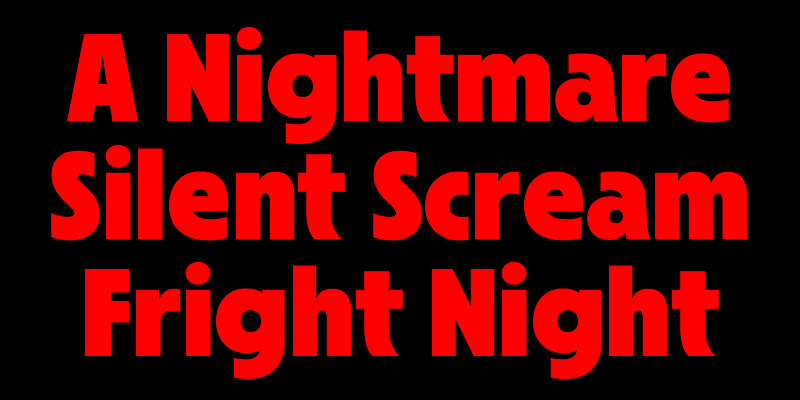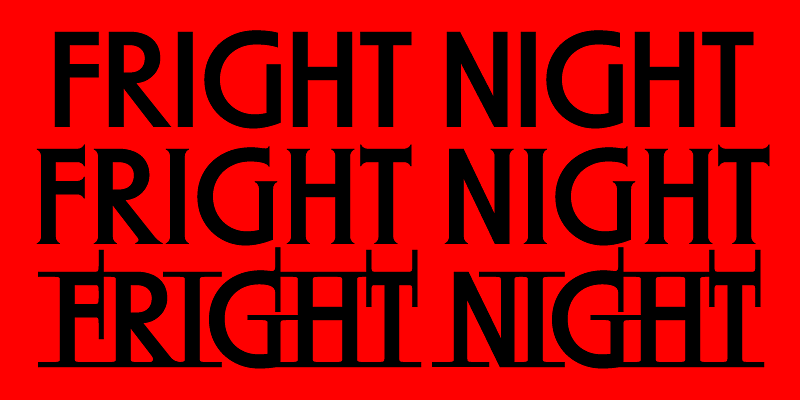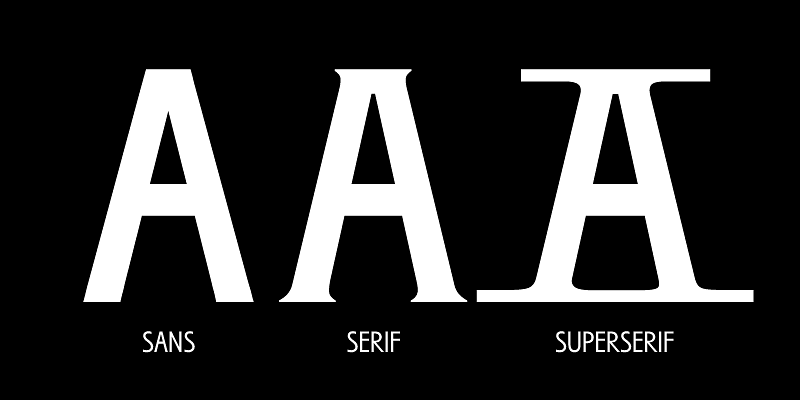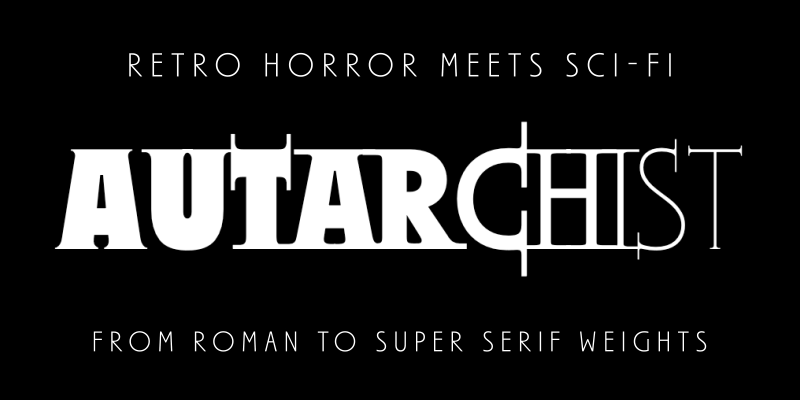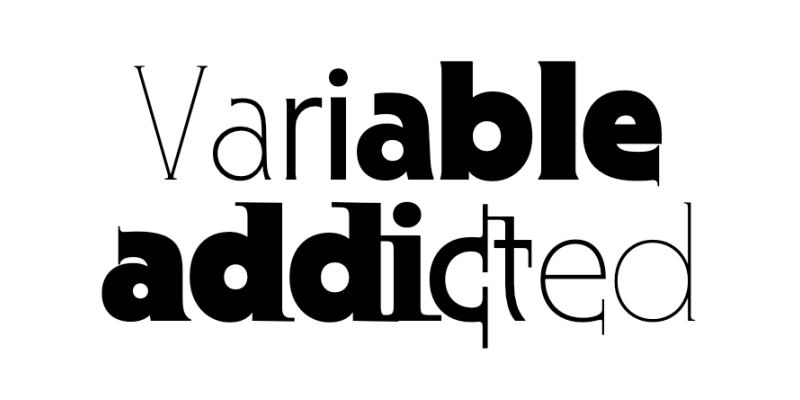
Autarchist is a typographic odyssey through the aesthetics of 1970s and 1980s science fiction and horror, a golden age of bold, cinematic visions, pulpy paperbacks and highly stylized letterforms that often pushed the boundaries of legibility in favor of a thrilling blend of futurism, psychedelia and Art Nouveau design. Initially born as a sans-serif reinvention of 1970s classics like ITC Serif Gothic, the design expands into a full typographic journey shifting through sans, serif and superserif versions. Through variable font technology, Autarchist morphs seamlessly between the practical and the dramatic across a wide range of weights and serif intensities, to help designers capture both nostalgic warmth and futuristic edge.